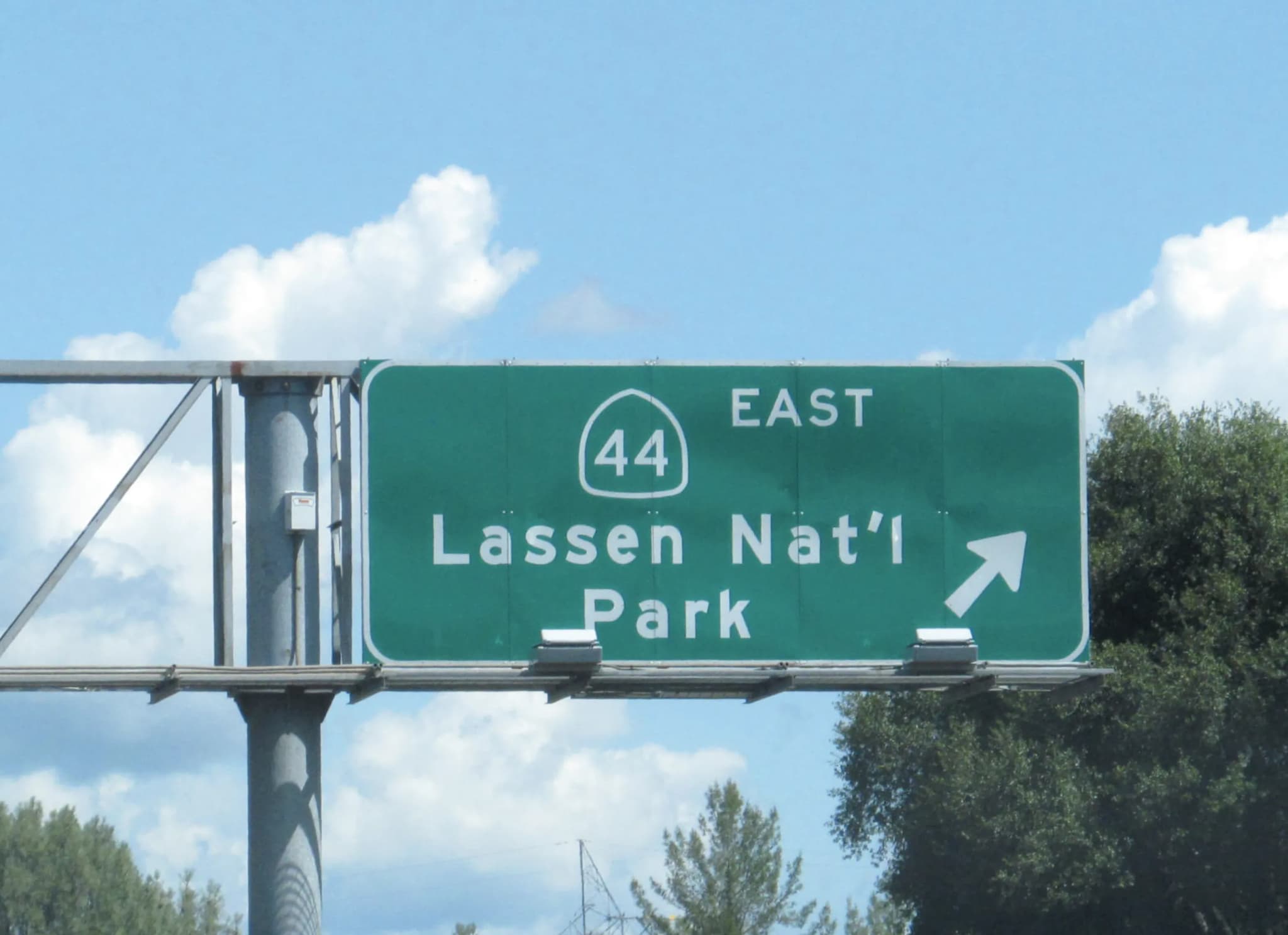
The typeface Highway Gothic is designed for highway signs in the United States. There is a whole debate on the typefaces of US Highways, but in the end, Highway Gothic has prevailed.